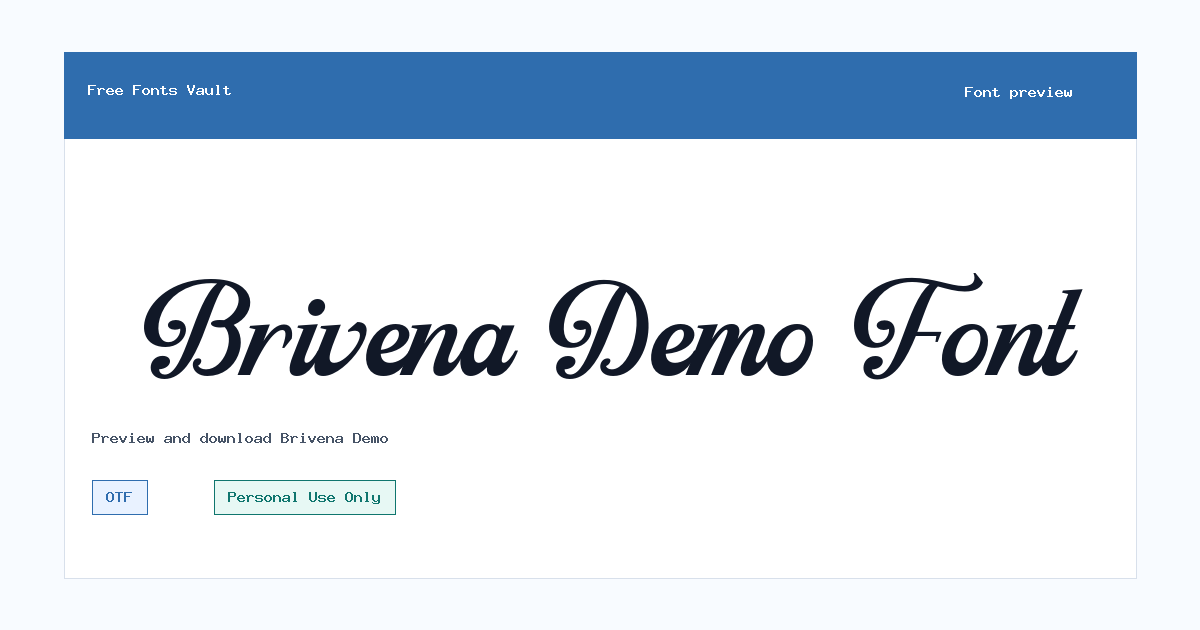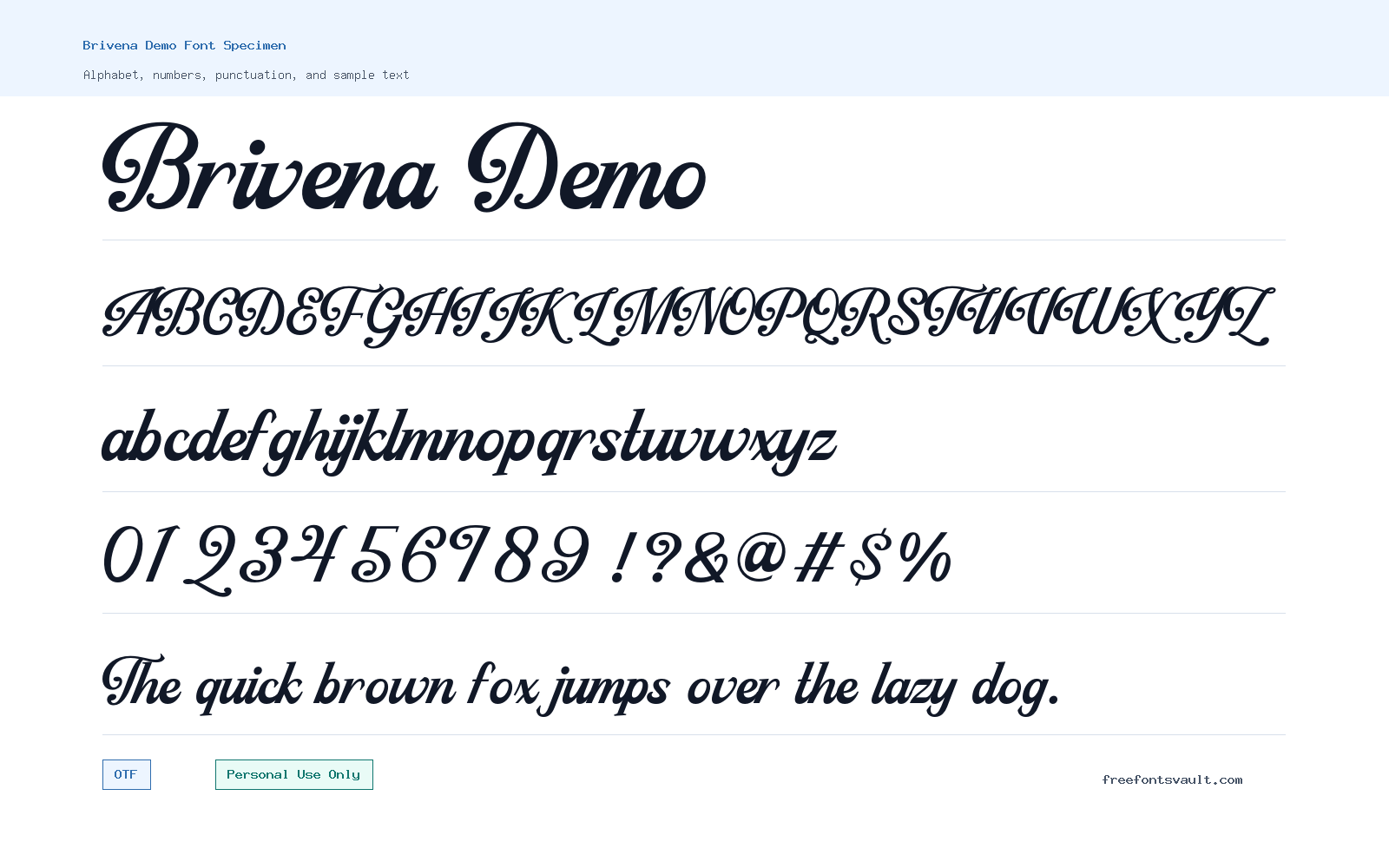
Brivena Demo
- Designer Dida Ahluddin
- Foundry ahweproject
Brivena Demo font.
Brivena Demo is a calligraphy script font with flowing letterforms, smooth curves, and a display-focused style. The file name and page title both identify it as a demo, so it is best treated as a trial version for testing personal projects before seeking the full commercial license.
Brivena Demo has the look of a modern script display typeface: connected strokes, rounded movement, and a polished calligraphic feel. It works best when the words are allowed to breathe, because decorative scripts can lose clarity when they are packed too tightly or used at very small sizes. Use the preview box to test real names, brand words, invitations, quotes, or headline phrases rather than judging it from the alphabet alone. Letters with loops, capitals, and swashes can change the rhythm of a word, so previewing your exact text is the safest way to decide whether the font fits your design.
- Calligraphy script style with smooth, connected letterforms for decorative display text.
- Personal logo drafts, invitation titles, greeting cards, quote graphics, and social media headers.
- Short words or phrases where a flowing script style can be shown at medium to large sizes.
What kind of designs fit Brivena Demo?
It suits short display text such as names, titles, quote graphics, invitation wording, logo concepts, and personal social media designs.
Can I use Brivena Demo for body text?
It is not ideal for paragraphs. Use it for accents or headings, then pair it with a simpler font for longer text.